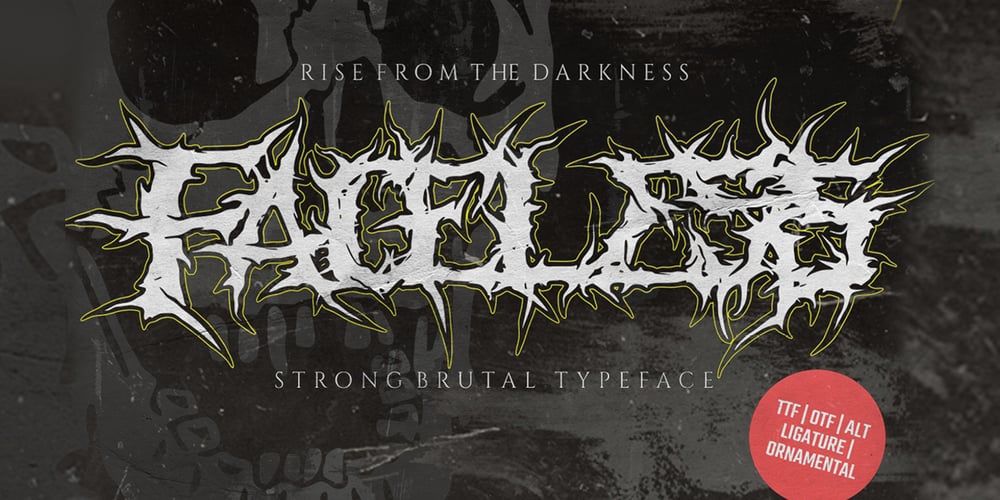
Faceless Font Family was designed by Abdul Malik Wisnu, Anang Fibriyanto and published by Gassstype. Faceless contains 1 styles and family package options. Hello Everyone, introduce our new product Font Faceless it is lack metal Typeface, Rooted, but still readable.This is a Textured Natural Style and classy style with a clear style and dramatic movement.This font Faceless is great for your next creative project such as logos, printed quotes, invitations, cards, product .